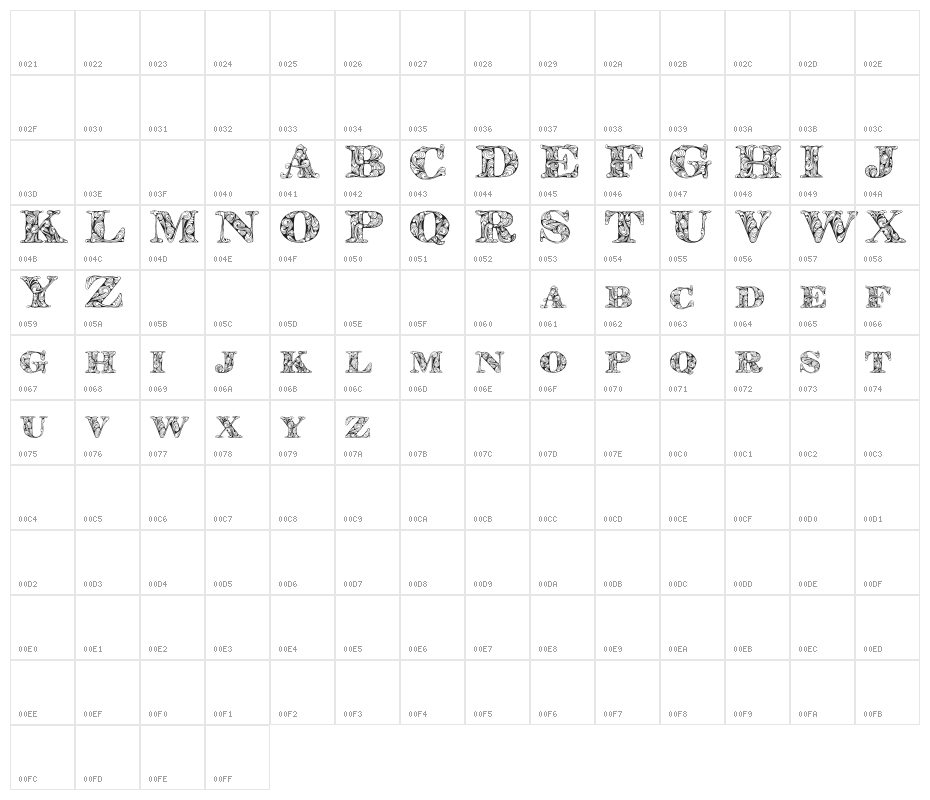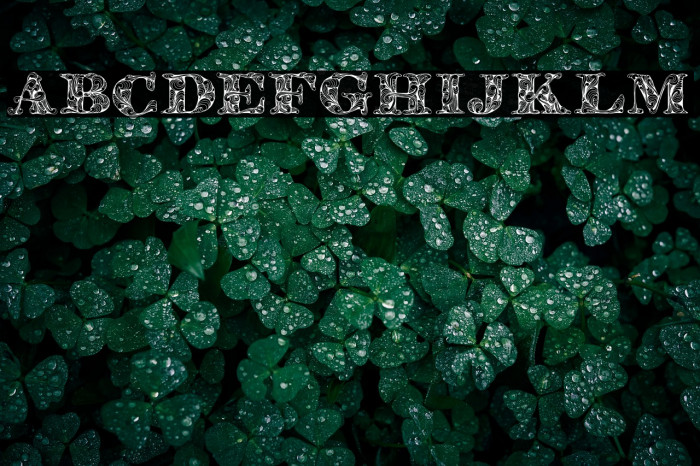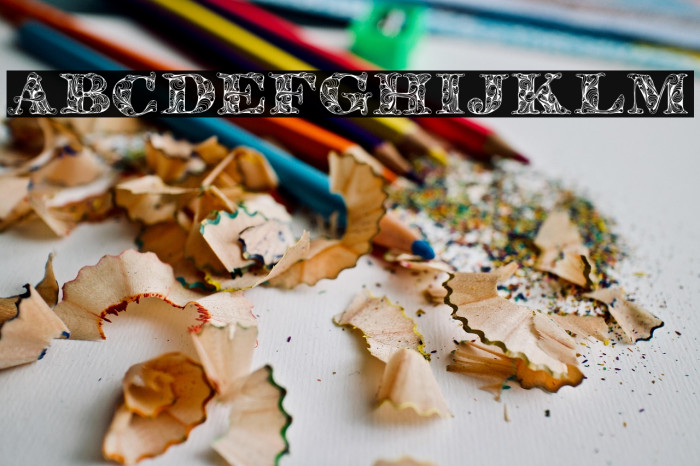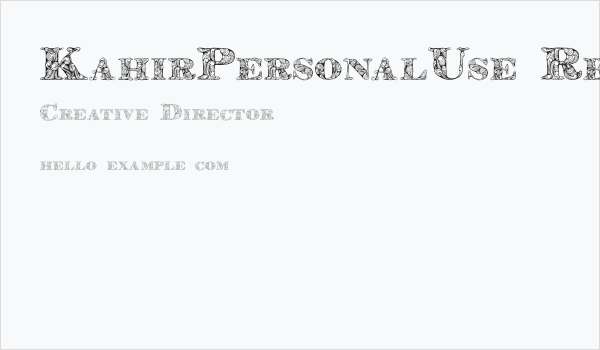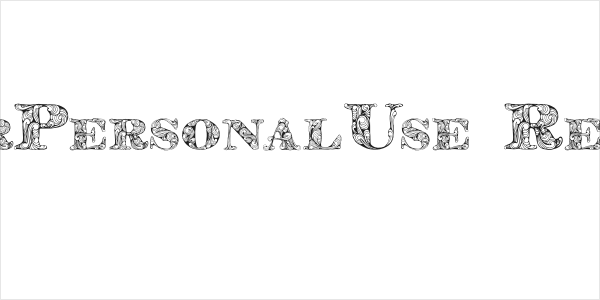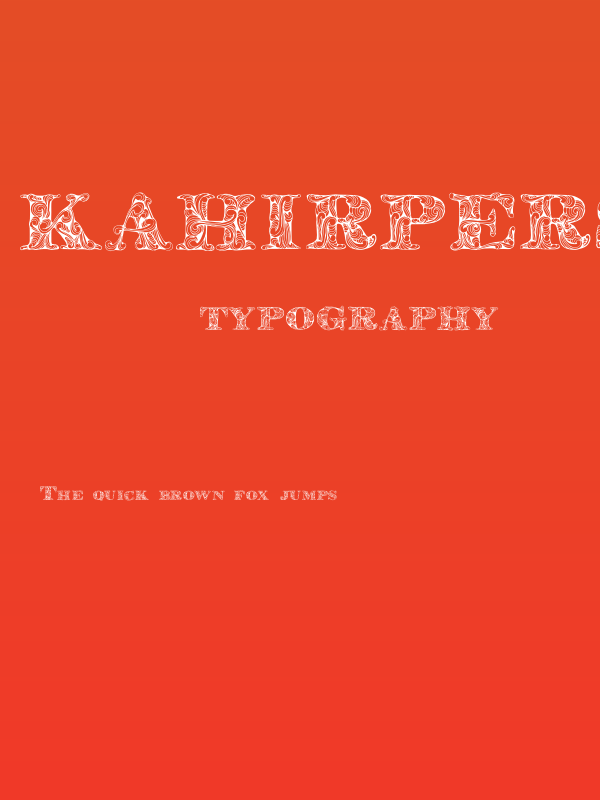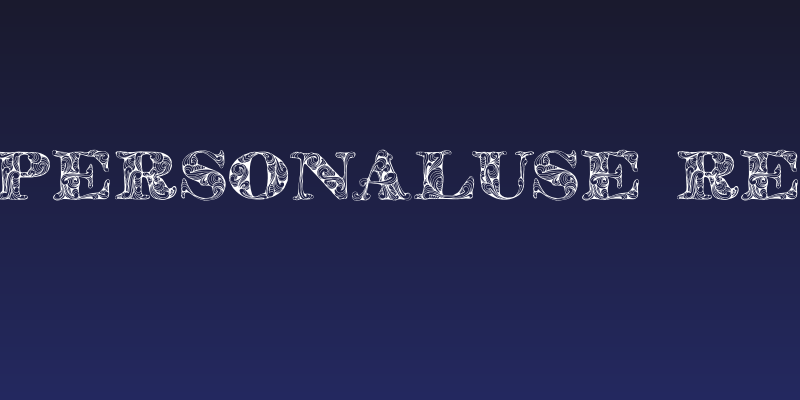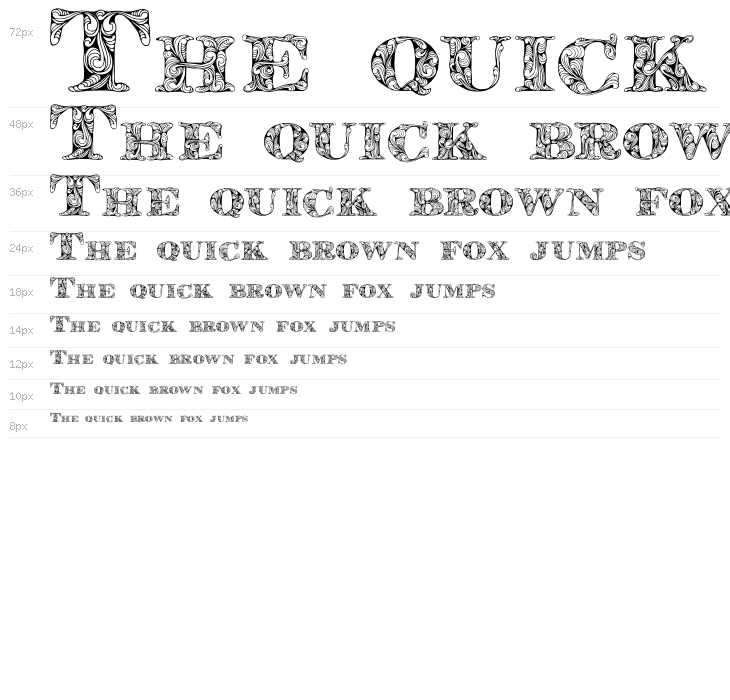
KahirPersonalUse Regular Font
KahirPersonalUse Regular Description
This font features an intricate and decorative design with elaborate patterns filling each letter. The uppercase letters are adorned with detailed floral and vine motifs, creating a sense of elegance and sophistication. The style is reminiscent of vintage or classical ornamental typography, often seen in historical documents or artistic prints. The complexity of the design makes it stand out, capturing attention with its artistic flair. Each character is uniquely crafted, ensuring that the font is not only functional but also a piece of art.
| Proposed Projects | Ideal for wedding invitations, vintage-themed posters, artistic book covers, and decorative branding projects. |